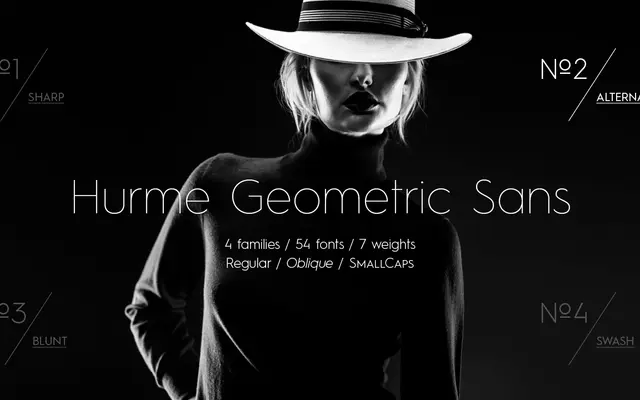
Hurme Geometric Sans №2
A seven-weight geometric sans from Hurme Design with true small caps, obliques and broad Latin language coverage.
Fourteen styles span seven weights from Hairline to Black, each paired with a matching oblique. True small caps and alternate characters are available via OpenType features, giving the family some flexibility beyond its clean geometric core. It is closely related to Hurme Geometric Sans No.1, differing only in which character variants are set as default, with the other variants accessible through OpenType.
The typeface is explicitly named and styled as a geometric sans, with consistent stroke weights and open, circular forms typical of the geometric category.